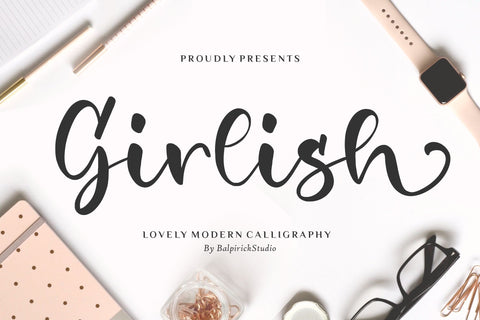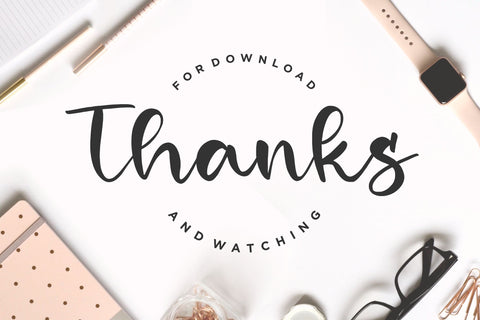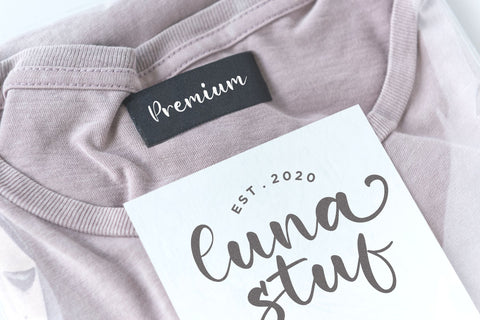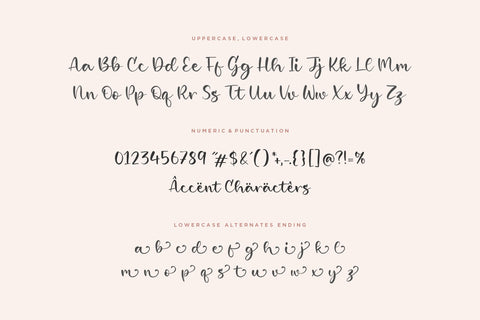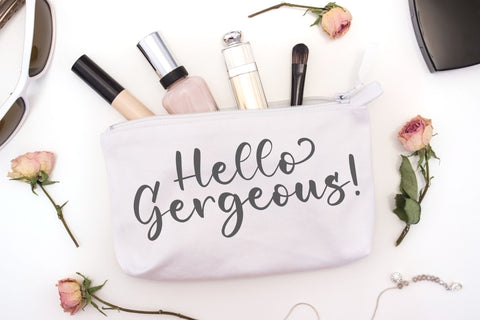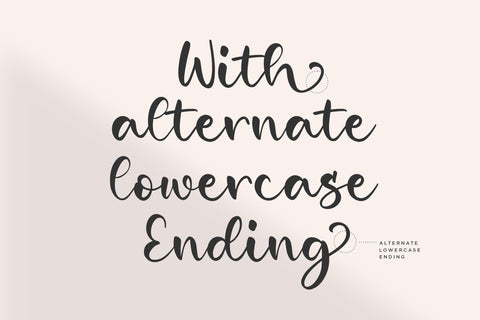
Girlish Lovely Modern Calligraphy Font
Proudly Present, Girlish Font.
Girlish is a Lovely Modern Calligraphy Font.
Girlish is perfect for product packaging, branding project, megazine, social media, wedding, or just used to express words above the background.
Lowercase font Stylistic Alternates Ligatures Symbols & Punctuation OpenType Features.